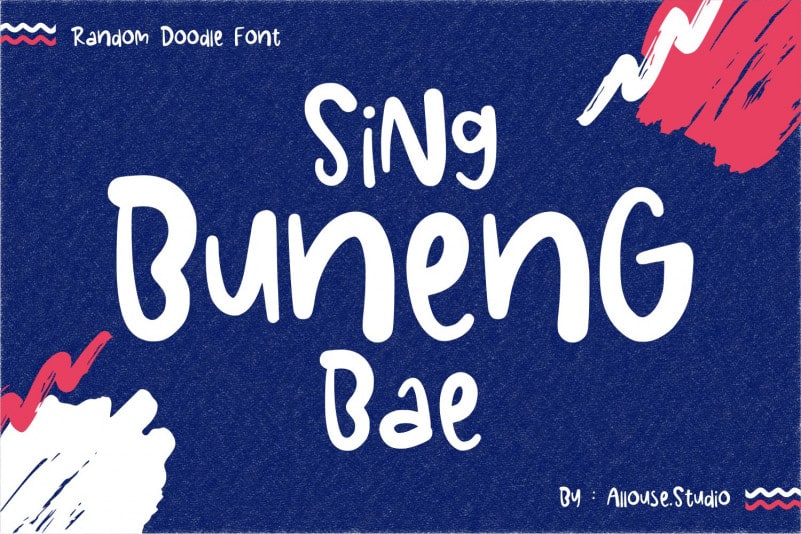
Sing Buneng Bae Display Font is a Random Doodle typeface. Sing Buneng Bae is perfect for product packaging, branding project, megazine, social media, wedding, or just used to express words above the background.